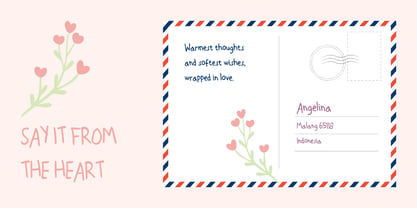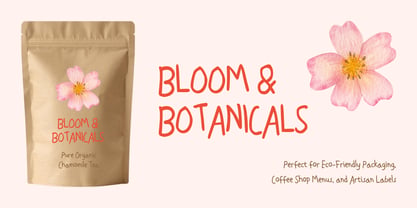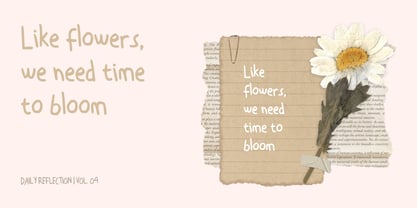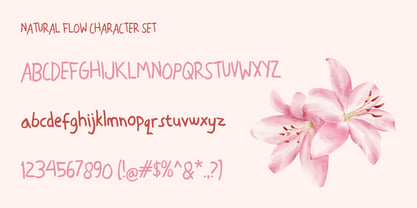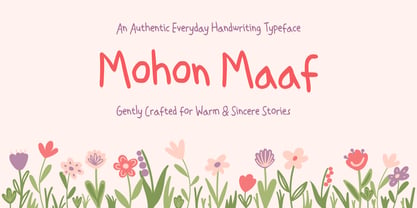
Mohon Maaf
The Mohon Maaf Font Family was designed by Wahyu Eka Prasetya, Moch Zamroni and published by Kalam. Mohon Maaf contains 2 styles and family package options. More about this family
Bring genuine human connection and effortless authenticity to your creative projects with Mohon Maaf. Based directly on real, everyday personal handwriting, Mohon Maaf captures the unscripted charm, warmth, and subtle natural flow of actual pen-on-paper notes.
Design Concept & Inspiration
Created from raw, unrefined everyday handwriting, Mohon Maaf was designed to break away from overly polished digital scripts. It embodies the relaxed pace of quick personal letters, casual reminders, and daily journal entries. The name "Mohon Maaf" adds a humble, relatable touch—offering a typeface that feels deeply human, approachable, and sincere.
Ideal Design Uses
Mohon Maaf is versatile and adds a friendly, organic touch across various design applications:
- Personal Journals & Digital Planners: Perfect for aesthetic digital note-taking, planners, bullet journal layouts, and diary spreads.
- Casual Branding & Stationery: Ideal for indie coffee shop menus, greeting cards, thank-you notes, stickers, and custom packaging.
- Social Media & Quotes: Create relatable Instagram posts, TikTok captions, Pinterest quote graphics, and casual stories that connect directly with your audience.
- Editorial & Merchandise: Great for casual book covers, indie zine titles, graphic t-shirts, tote bags, and lifestyle product labels.
Key Features & Pairing Suggestions
- Authentic Everyday Rhythm: Carefully digitized to preserve the natural strokes and relaxed movement of genuine handwriting.
- Complete Character Set: Includes uppercase and lowercase letters, numerals, essential punctuation, and standard symbols.
- Effortless Font Pairing: Pairs naturally with clean, modern Sans-Serif fonts (like Montserrat or Helvetica) or simple Serifs for body text, creating a balanced and cozy aesthetic.
Infuse your designs with real personality and warm authenticity using Mohon Maaf!